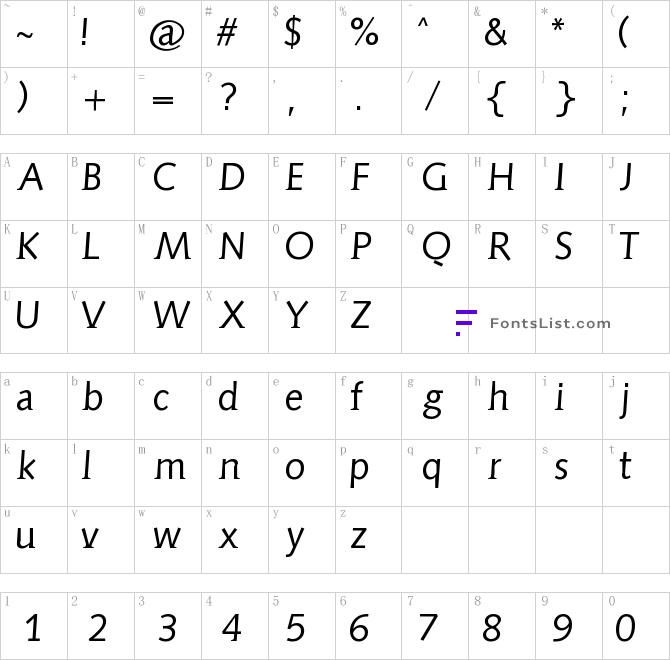
- Font Name:AidaSerifObliqueMedium
AidaSerifObliqueMedium.ttf is a very beautiful artistic font, AidaSerifObliqueMedium.ttf is widely used in the design and printing of various books and pictures,AidaSerifObliqueMedium.ttf has a strong visual impact,AidaSerifObliqueMedium.ttf is a commonly used font in newspapers, magazines and books, and is used in posters, e-commerce Poster design, store design, logo design, font design and other fields.AidaSerifObliqueMedium.